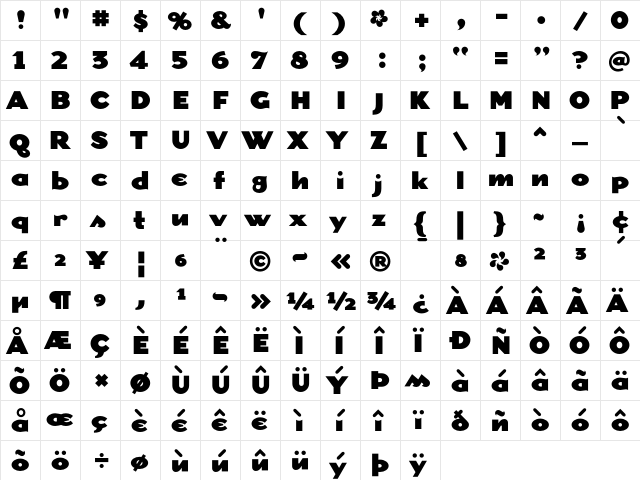
Dogma Black
Design Context for Dogma Typeface
Dogma offers clean, dependable letterforms without strong stylistic allegiance, making it a practical choice for designers who need flexibility.
Pro Tip: Pair Dogma with a font of contrasting weight or personality to build a more expressive typographic hierarchy.